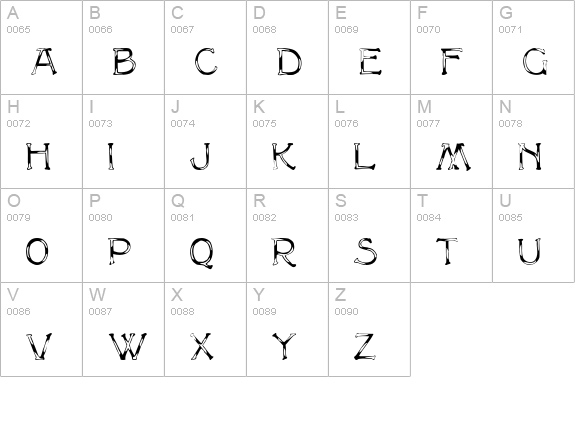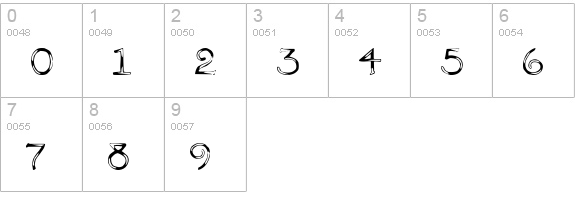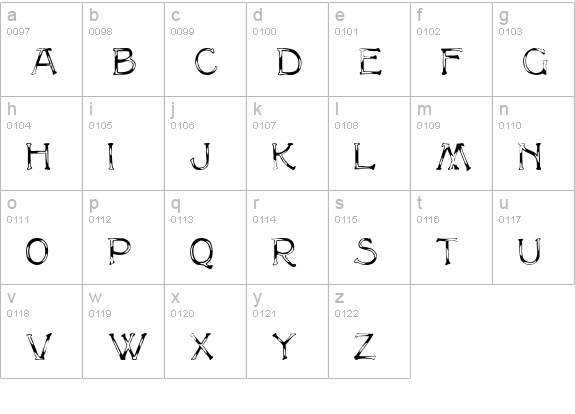
MultiformCaps Font Details
Introducing MultiformCaps font, a versatile and stylish typeface that is perfect for adding a touch of sophistication to your designs. With its bold and unique letterforms, MultiformCaps font is sure to make a statement and stand out from the crowd. This font is ideal for a wide range of design projects, from branding to packaging to social media graphics. What's even better is that MultiformCaps font is available for free download at FontsMarket.com. Yes, you read that right - this stunning font can be yours at no cost. Simply head over to FontsMarket.com to grab your copy and start using this eye-catching typeface in your projects today. Whether you're a graphic designer, a marketer, or a creative enthusiast, MultiformCaps font is sure to become a staple in your font library. Don't miss out on this amazing opportunity to elevate your designs with this fantastic font - get your free download now at FontsMarket.com!